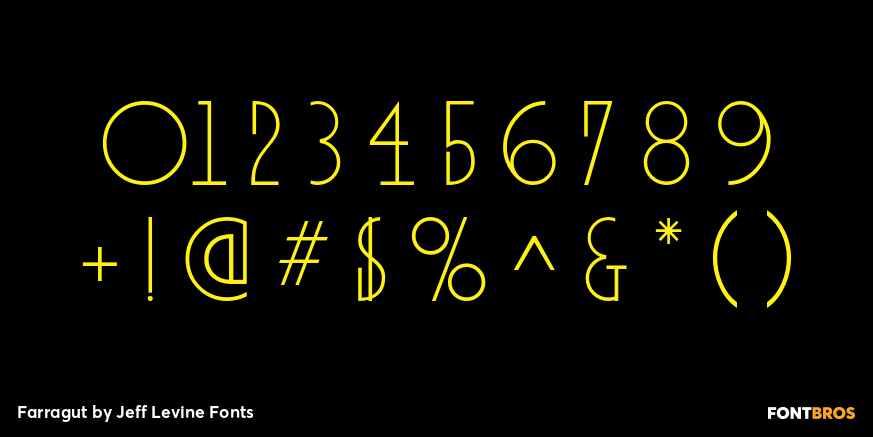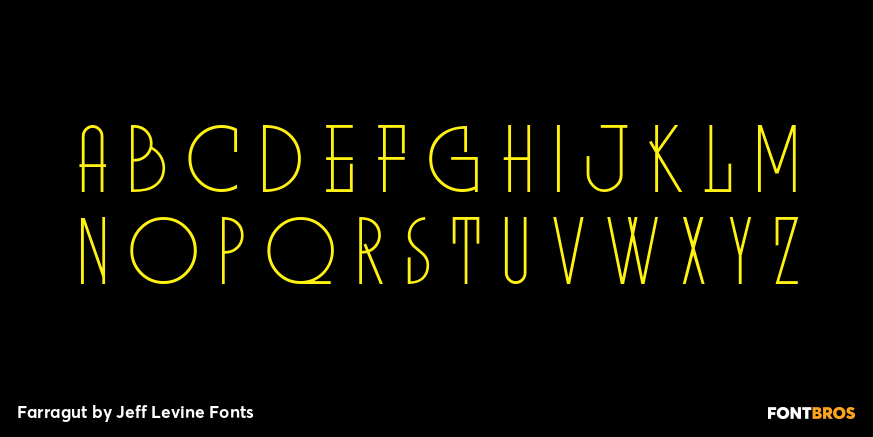
Farragut
An unusual take on Art Deco "streamlined" alphabets is found in Farragut JNL from Jeff Levine.
Over-extended serifs on some letters and elongated horizontal strokes on others make for a new approach to a traditional lettering style.